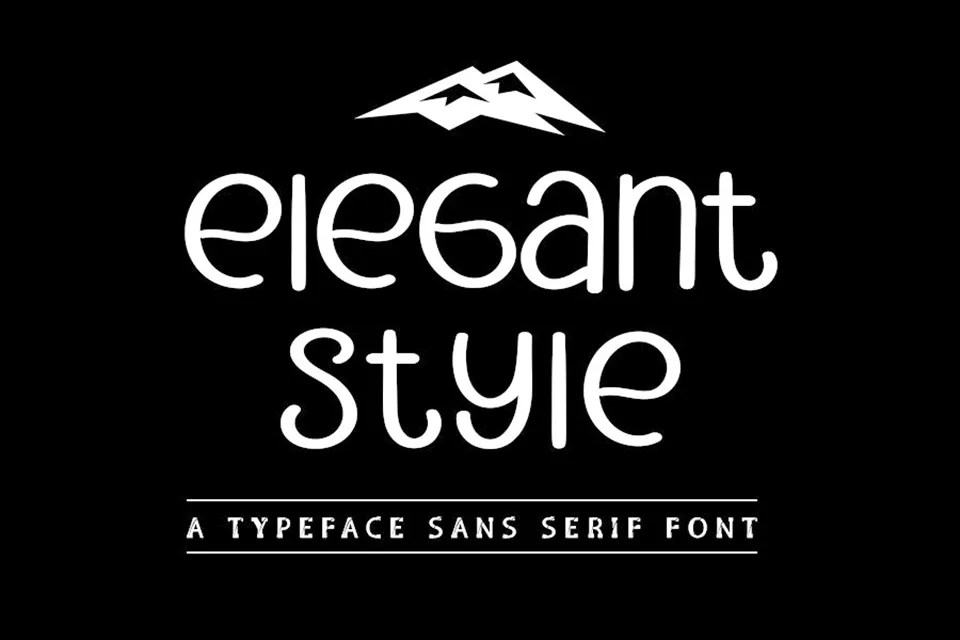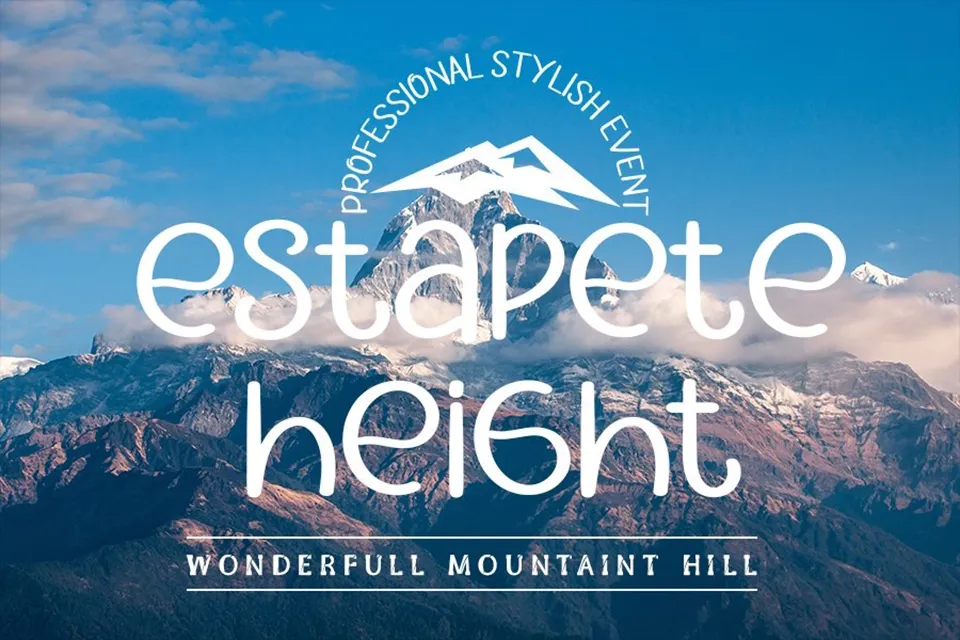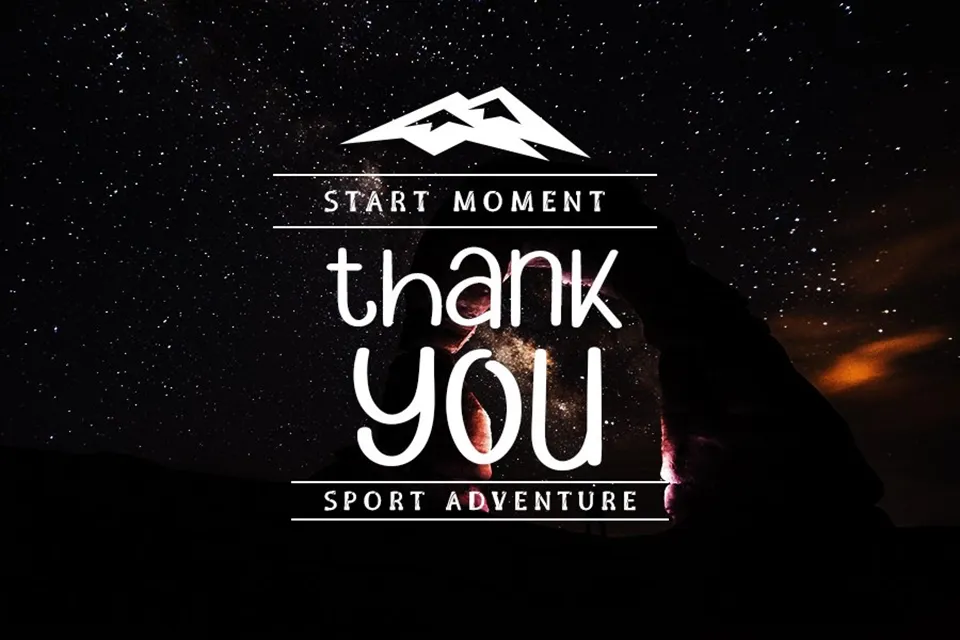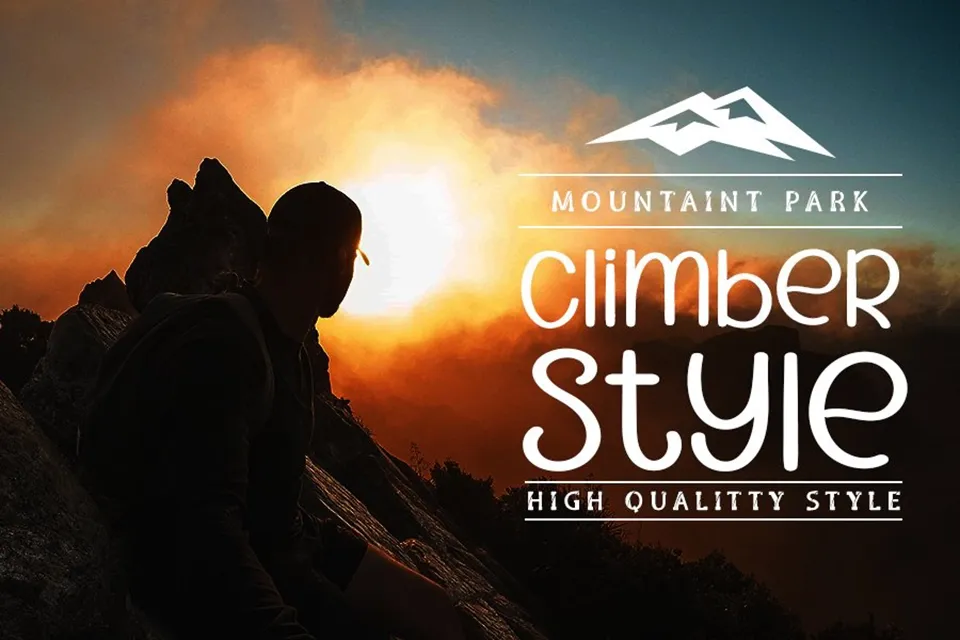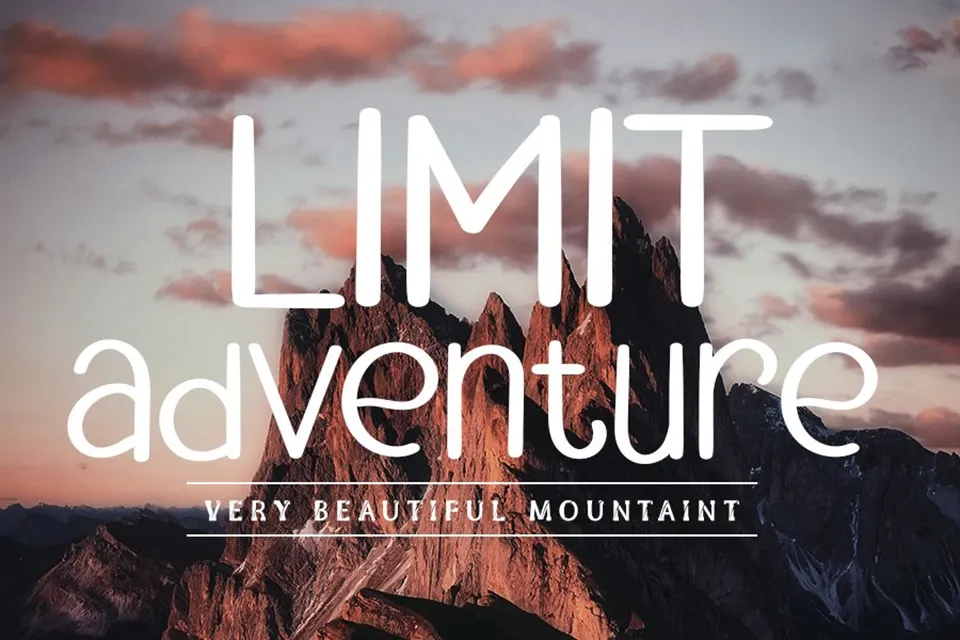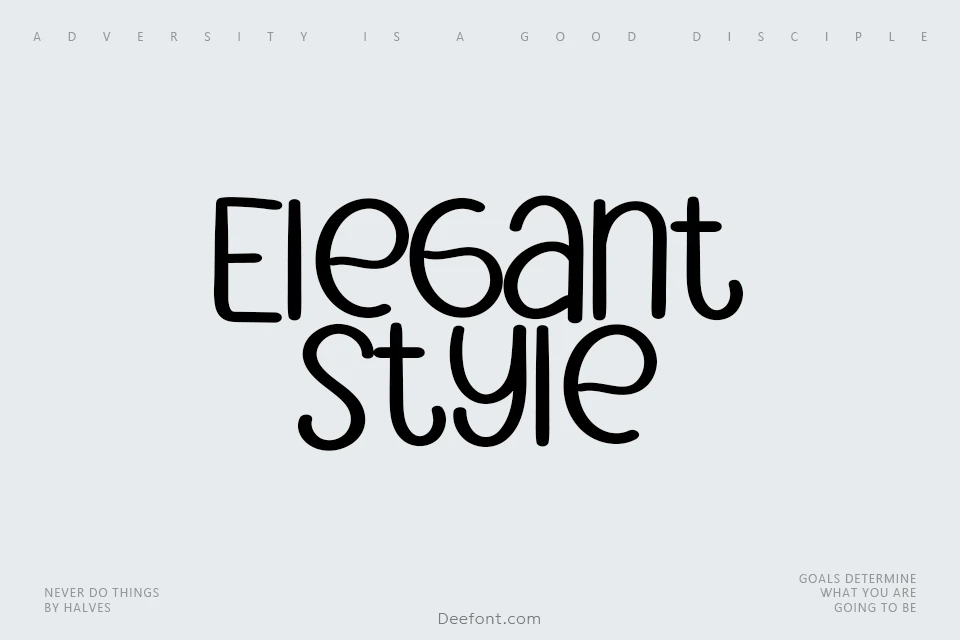
Elegant Style Font
Elegant Style Font is a modern sans serif typeface that exudes sophistication and charm. Its clean, balanced letterforms and unique curves make it ideal for projects that require a touch of elegance and style. Perfect for branding, invitations, and editorial use, Elegant Style Font brings a refined and contemporary feel to any design.